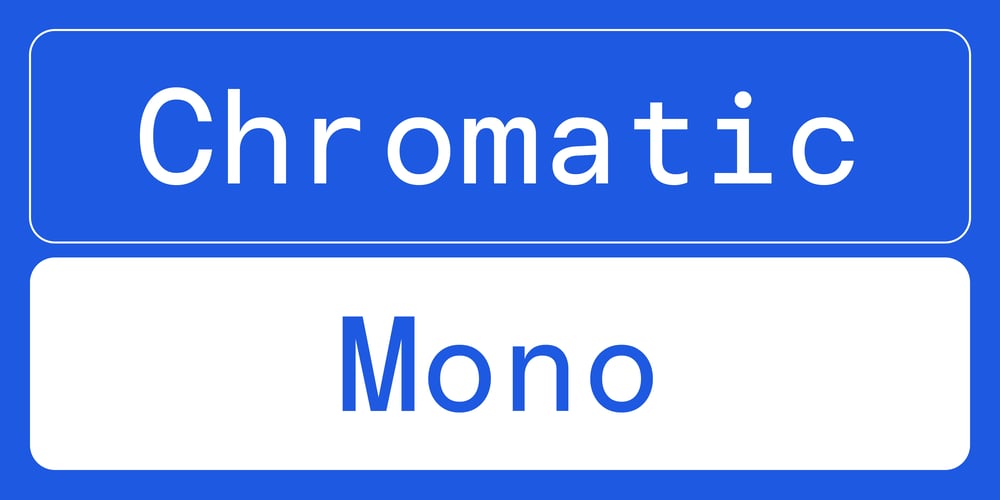
Chromatic Mono Font Family was designed by Colophon Foundry and published by Colophon Foundry. Chromatic Mono contains 4 styles and family package options. An extension of the multi-genre family “Chromatic”, Chromatic Mono is the sibling of Chromatic Grotesque. Utilising the grotesque DNA, the Monospaced variant extrapolates the swiss-inspired, perpendicular, horizontal terminals into a 10 Pitch fixed-width variant.Chromatic Mono is available in 4 weights — Regular, Medium, SemiBold and Bold — all open to licensing in both Standard (‘STD’) and Professional (‘PRO’) versions.It also includes copious alternate glyphs and characters that are categorised into a set of nine pre-defined stylistic sets. For further granular control, Chromatic contains 24 individual character variations to enable users to customise and modify the type family.